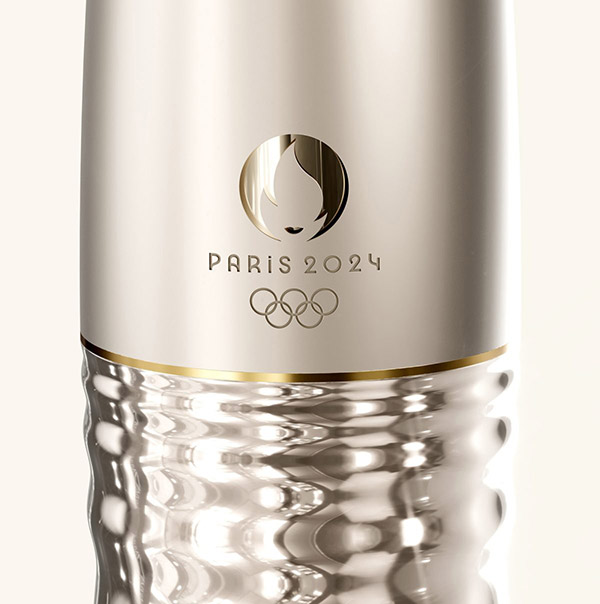
Paris 2024 logo | Logo Design Love
The logo for Paris 2024 combines three separate symbols — the gold medal, the flame, and Marianne (the personification of the French Republic).
“Each of these symbols reflects a part of our identity and values. It is also the first time in history the same emblem has been used for both the Olympic Games and the Paralympic Games.”
Marianne is an allegorical figure with a ubiquitous presence in France. She can be seen in the official logo of the French Republic, on stamps and in town halls and law courts, albeit with a much more detailed and traditional look.
According to cnews.fr, as general rule, a new representation of Marianne is chosen each time a new French presidential term begins.
Following the logo unveiling, the next phase of the Paris 2024 Olympics visual identity was revealed.
“A mix of sharp lines and simple graphic shapes come together in an interchangeable grid system that is a nod to the Art Deco style seen during the 1924 Olympics, also held in Paris.”
With almost every high-profile logo launch, not everyone liked what they saw. Can’t please them all.
More about the Paris 2024 design, including the colour scheme, Art Deco-inspired typeface, and games iconography.